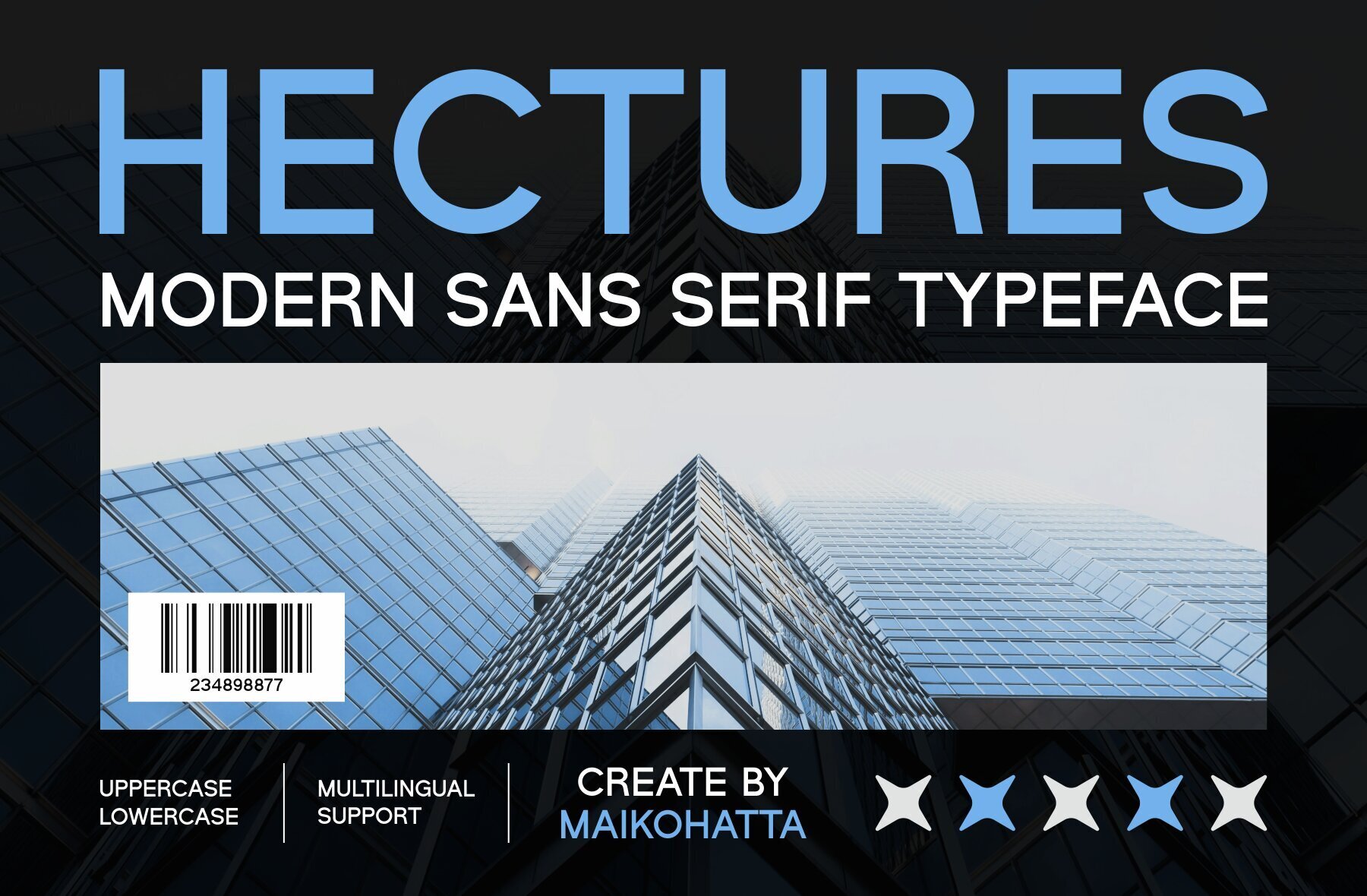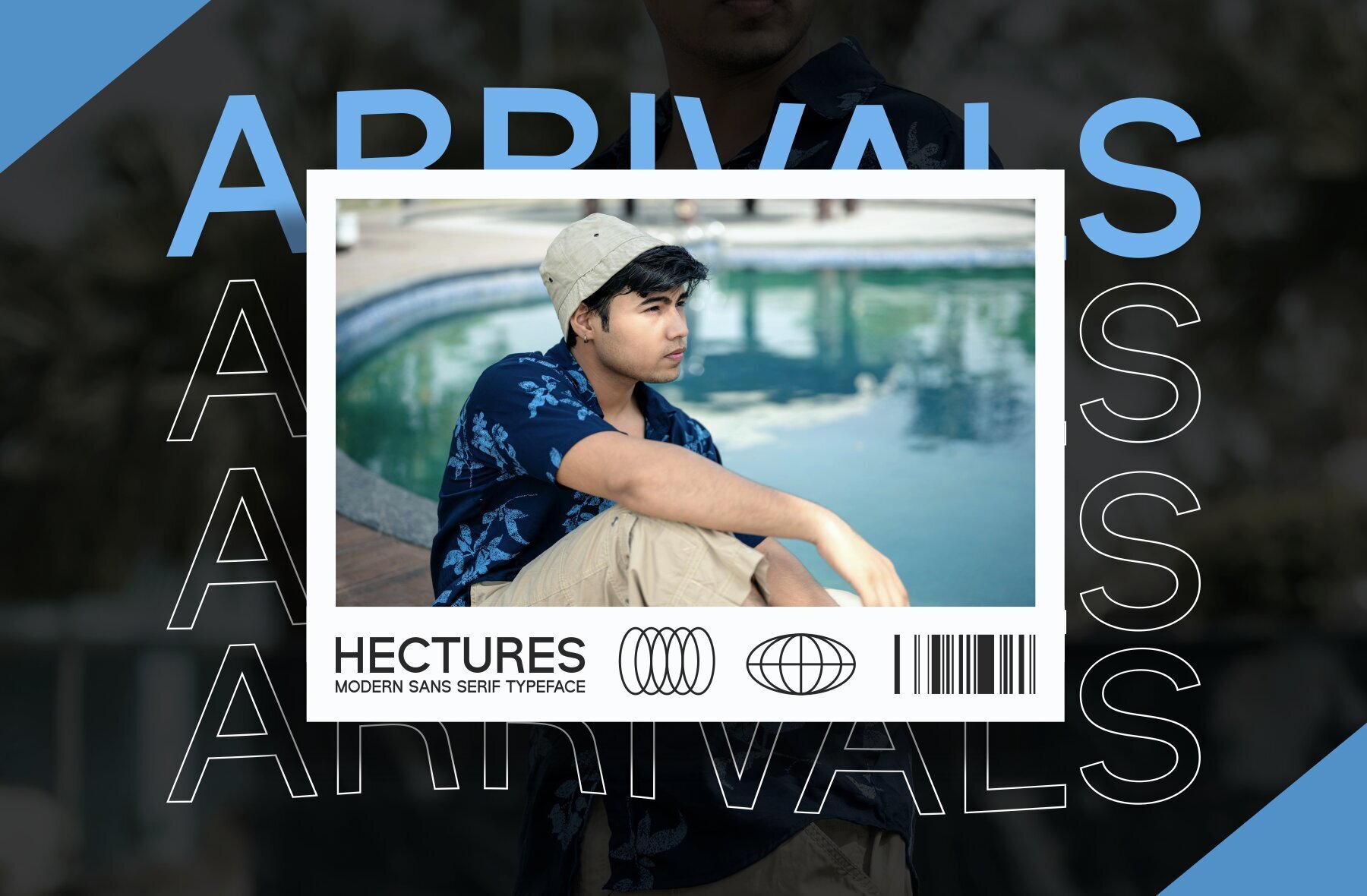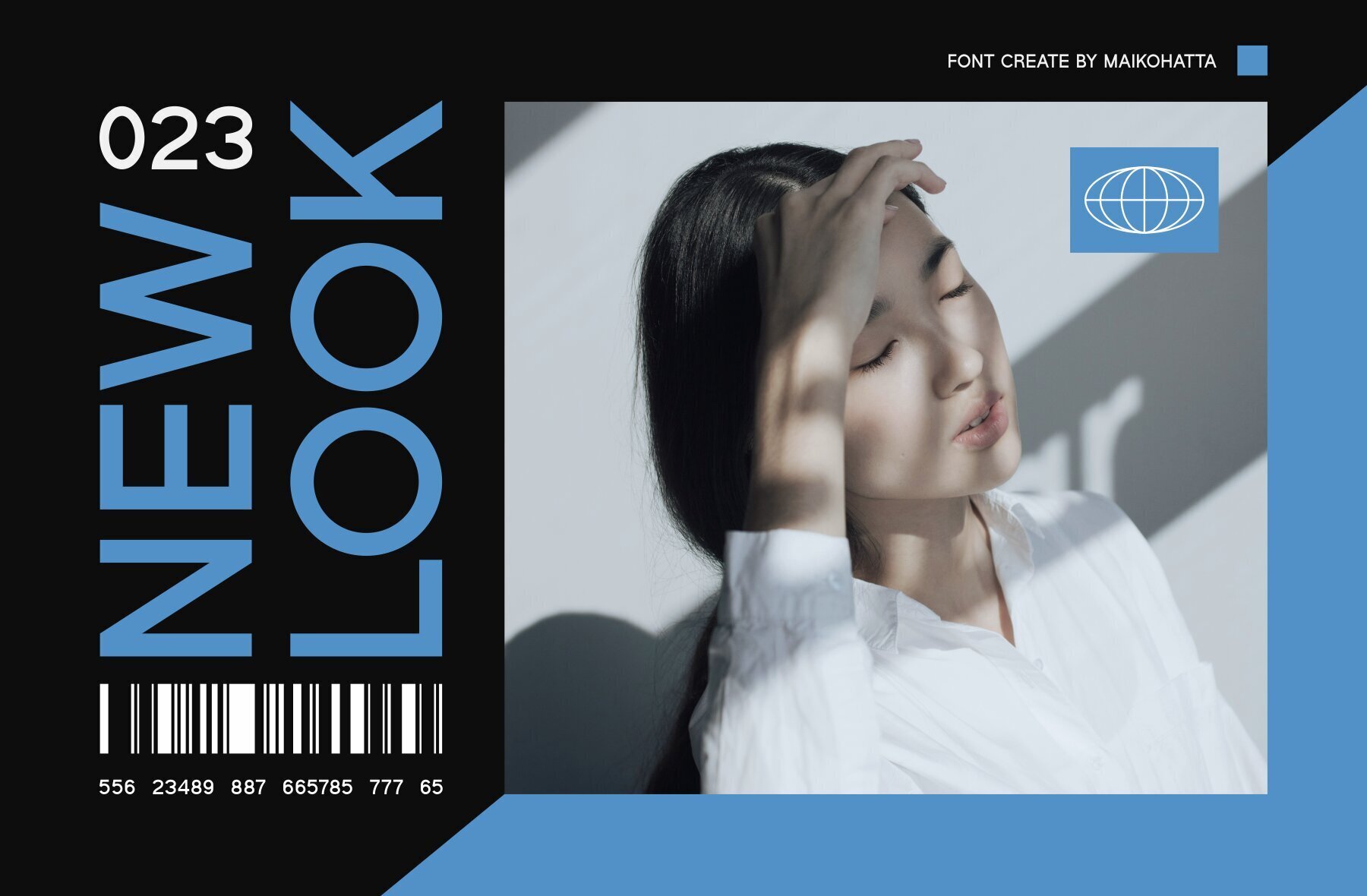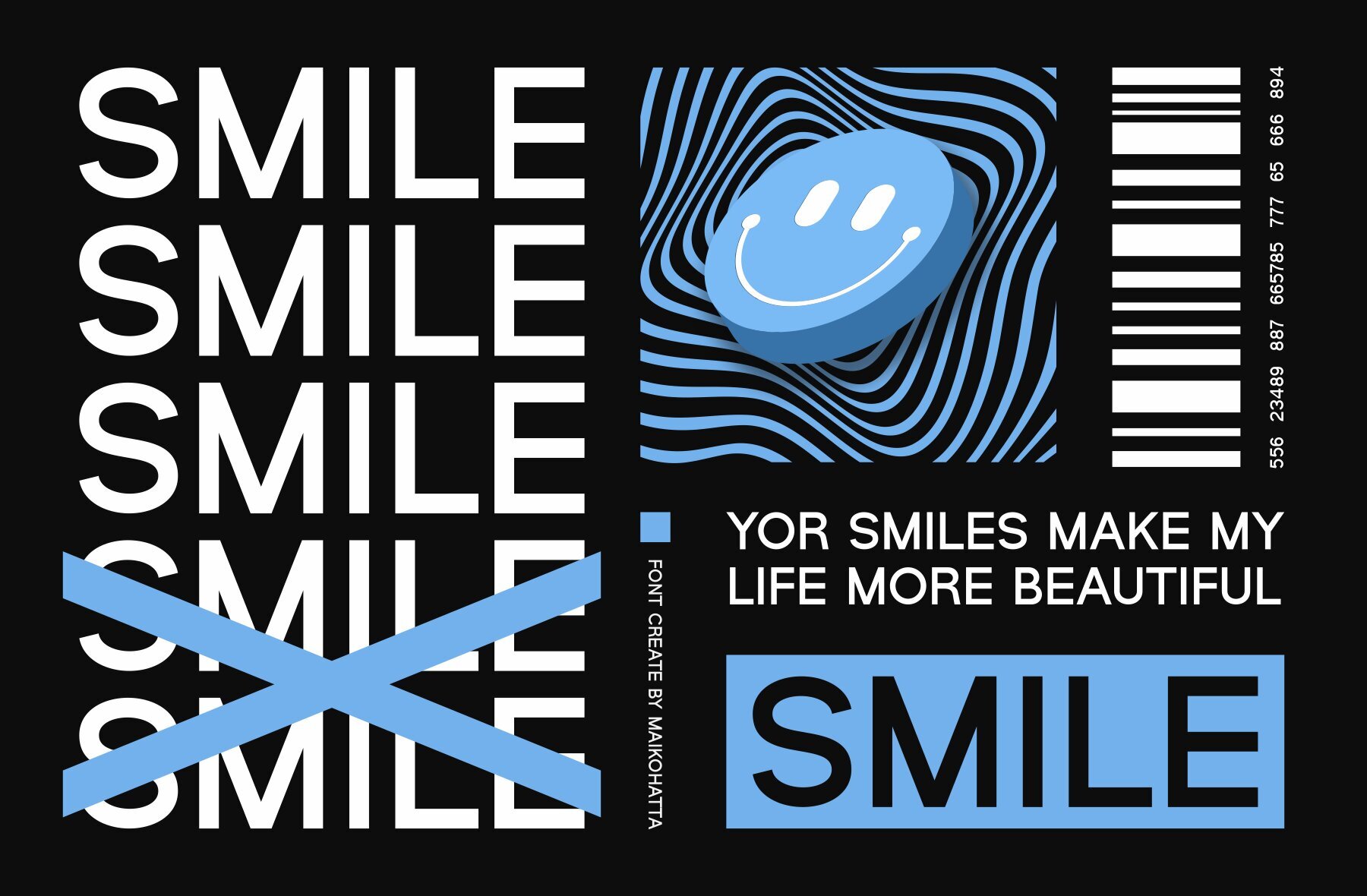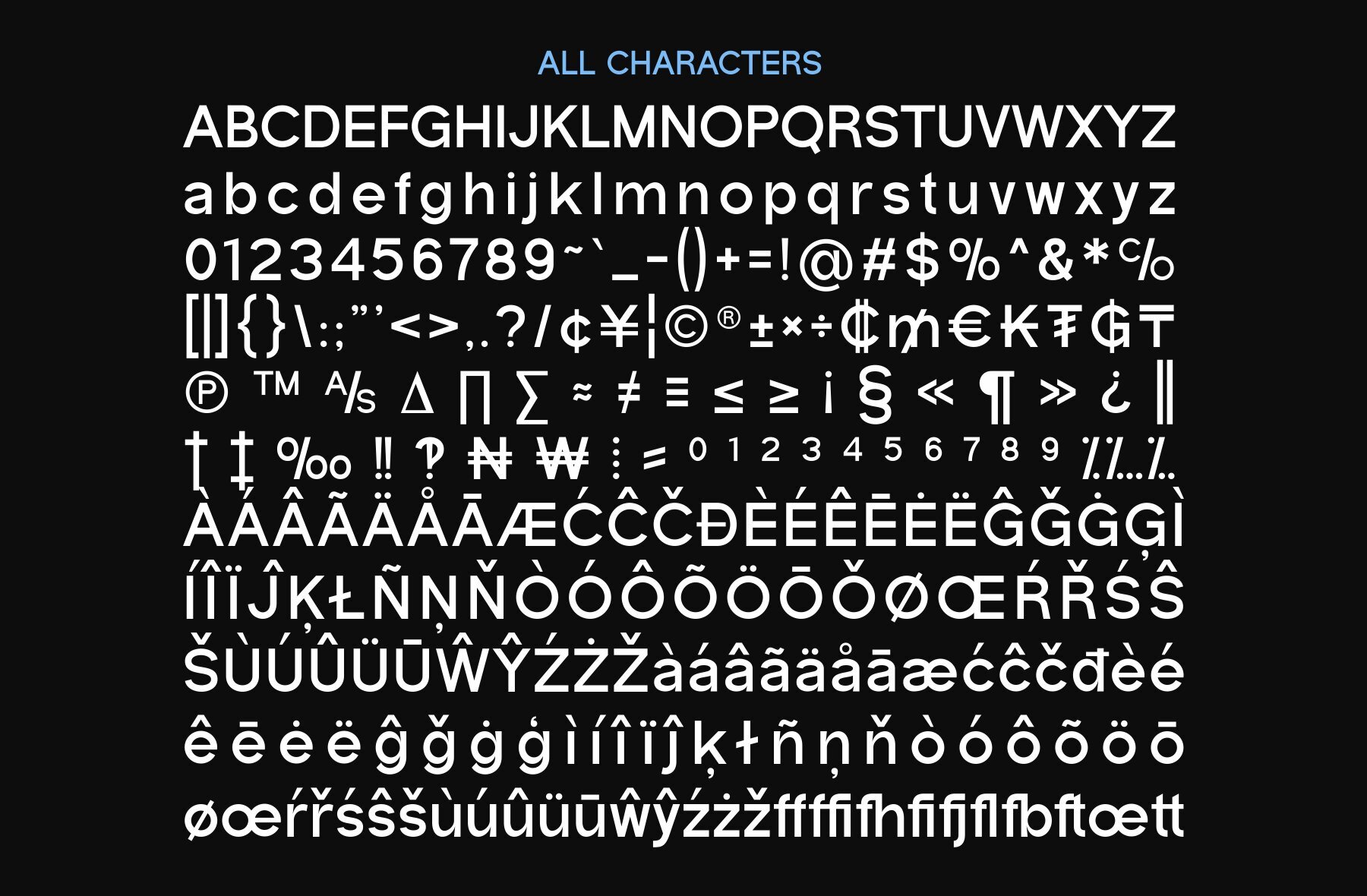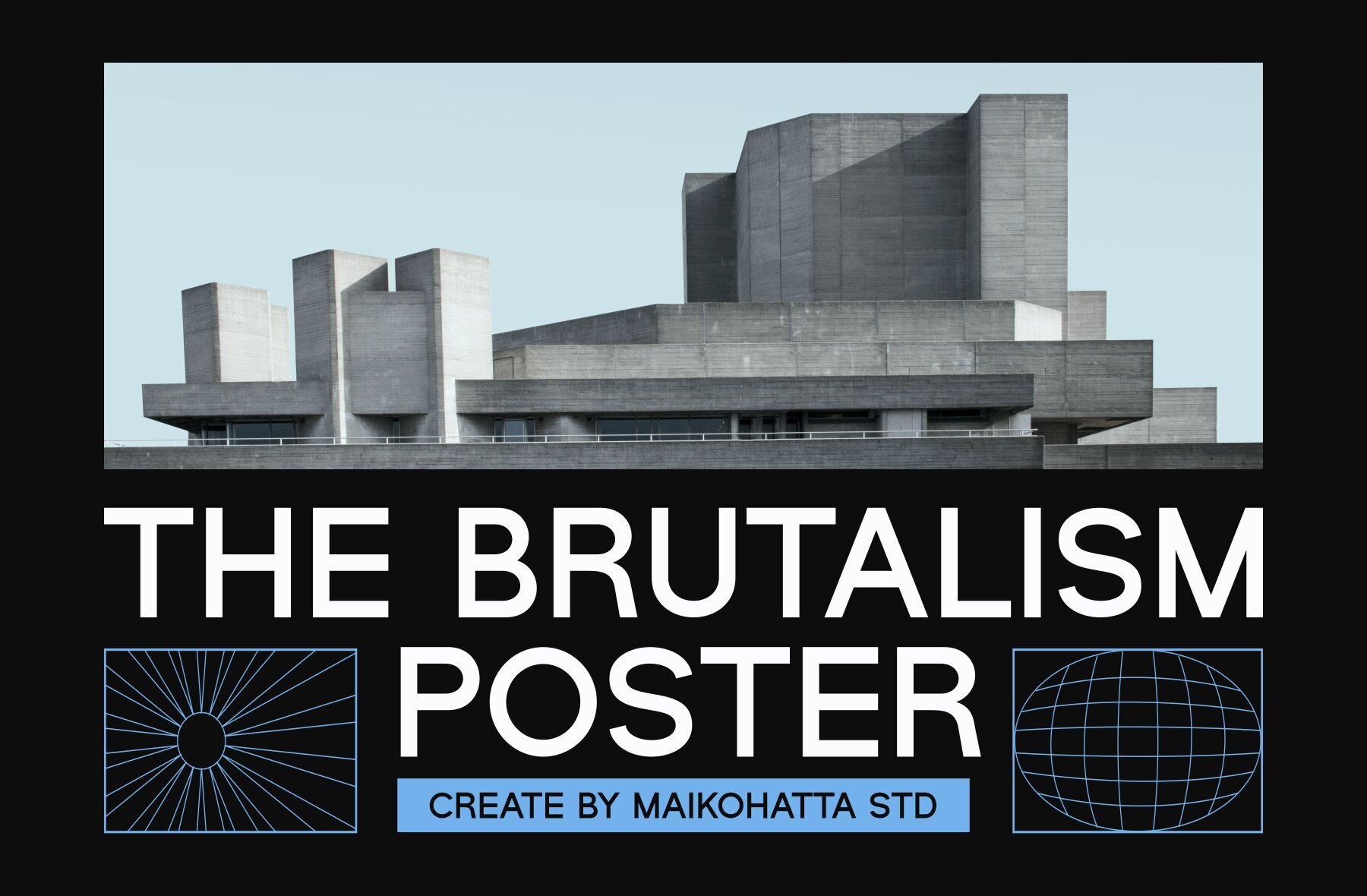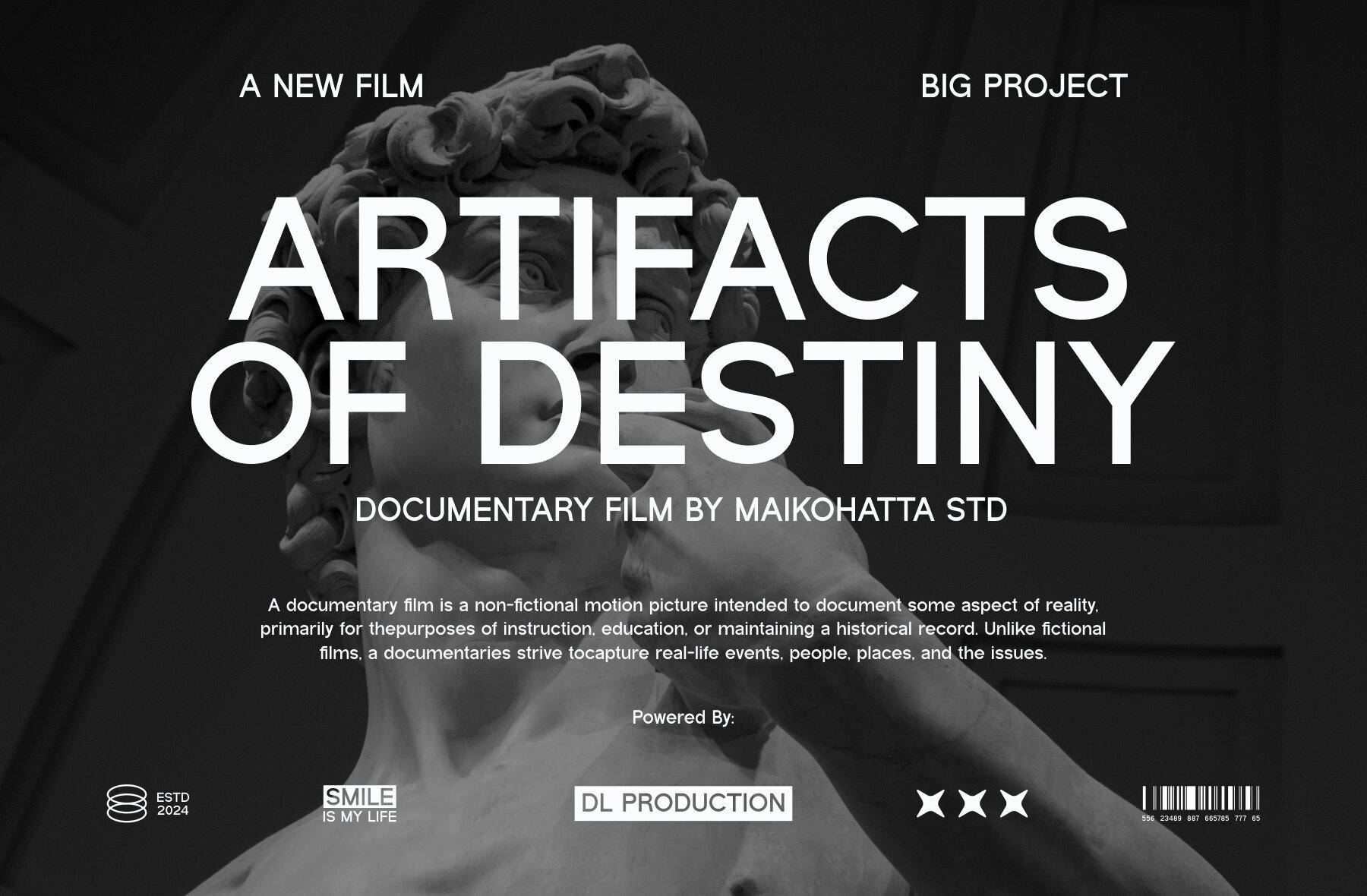
Hectures Font
Hectures Regular
This bold, sans-serif display typeface is characterized by its geometric and simplified structure, offering a clean and contemporary look. Its heavy, monoline letters are both impactful and legible, making it well-suited for headlines and branding where a strong and neutral presence is required. The uniform weight distribution across the characters lends it a sense of balance and professionalism, making it a versatile addition to a graphic designer's toolkit.